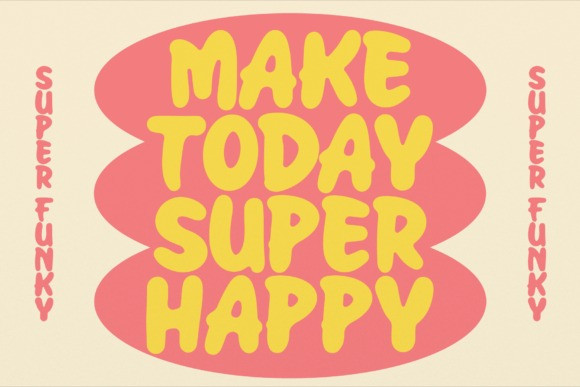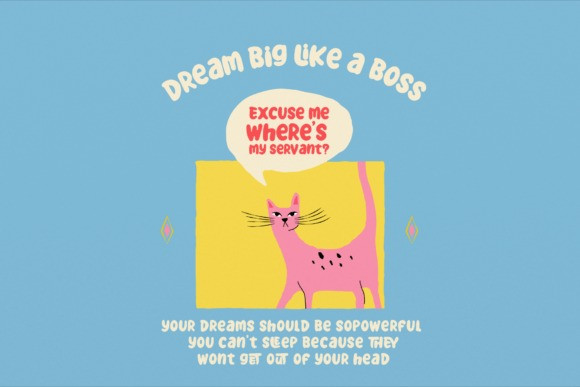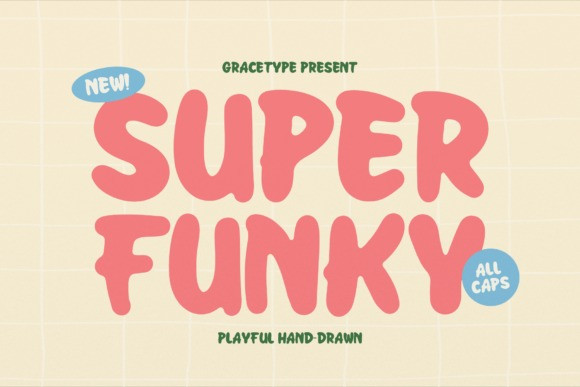
Super Funky Font
Super Funky Font a ultra-vibrant display typeface. This font features heavy, bulbous all-caps letterforms uniquely characterized by their soft pillow-like curves, irregular hand-drawn edges, and a playful baseline wobble that bridges the gap between 1970s retro counterculture zines and modern indie pop product branding. With its massive structural footprint and undeniable feel-good attitude, Super Funky is the premier choice for independent sticker collections, boutique retro confectionery packaging, casual streetwear graphics, and high-impact “bold-and-bouncy” social media headlines.